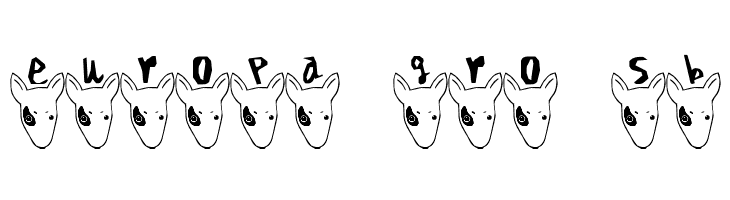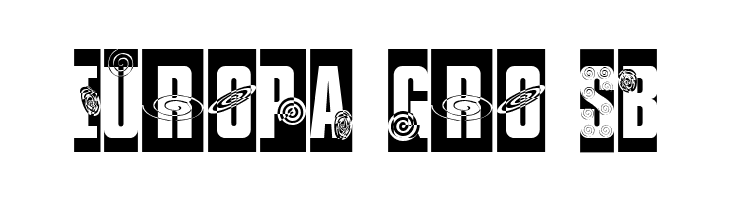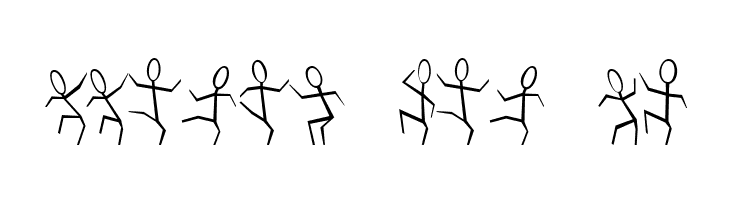
An elegant, flowing script font with decorative swirls and playful numerals.
An elegant, ornate script font with flowing, cursive letterforms and intricate flourishes.
A bold, distressed font with a grunge texture, ideal for edgy designs.
A playful and eclectic collection of bold, whimsical symbols with a street art vibe.
A bold, playful handwritten font with a dynamic and energetic style.
A bold, three-dimensional decorative font with a metallic, industrial style.
A bold, three-dimensional serif font with decorative shadow effects.
A bold, spray paint-inspired font with dynamic, irregular strokes.
A bold, jagged font with a raw, energetic style, perfect for dramatic themes.
A bold, distressed font with an eroded, vintage texture.
A bold, dripping font with a horror-inspired, decorative style.
A playful, hand-drawn font with cartoon-like features and bold strokes.
A bold, graffiti-inspired font with sharp, angular edges and dynamic styling.
A bold, graffiti-inspired font with dynamic and energetic characters.
A bold, graffiti-inspired font with textured, dynamic characters.
A whimsical, decorative font with characters embedded in cartoon illustrations.
A bold, playful font with chunky, irregular edges.
A bold, textured font with a rugged, distressed appearance.
A bold, textured font with a playful, fuzzy outline.
A bold, geometric font with circular and semi-circular shapes, perfect for striking headlines.
A bold, playful font with a comic book style, featuring thick, rounded characters.
Hand-drawn, space-themed decorative font with playful doodles.
A bold, futuristic font with a 3D effect and sporty design.
A bold, angular font with Gothic influences, ideal for dramatic and historical themes.
A bold, italicized font with a dynamic, speedy appearance.